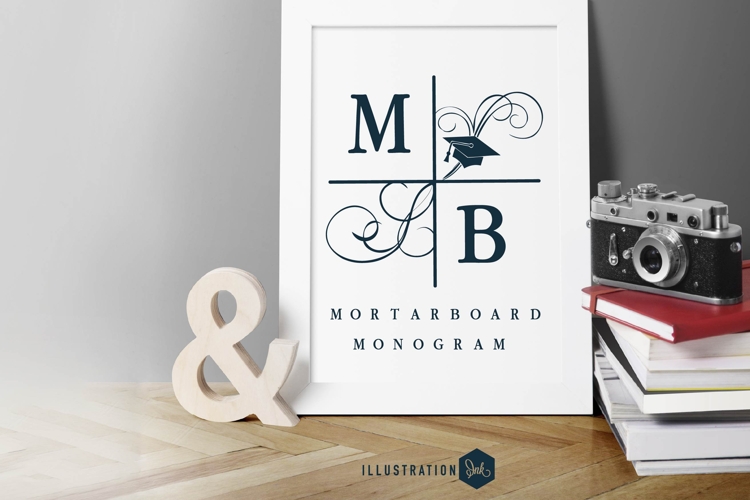
Mortarboard Monogram Font Family
This hand-crafted font is a monogram font. To use this monogram font type the first initial in uppercase and the second initial in lowercase and it will instantly be in the right position. Type "Mb" to get the results in the example.